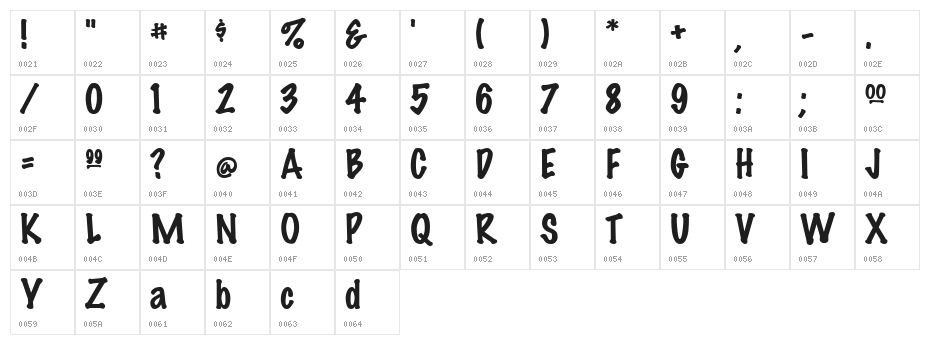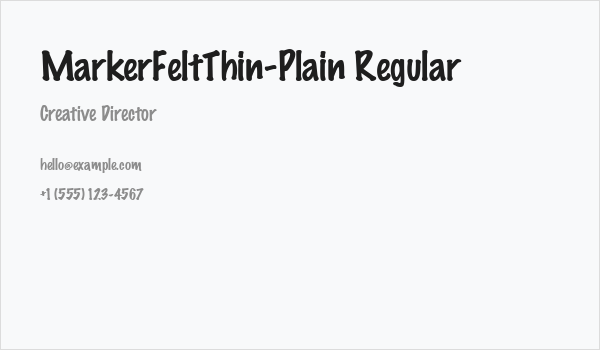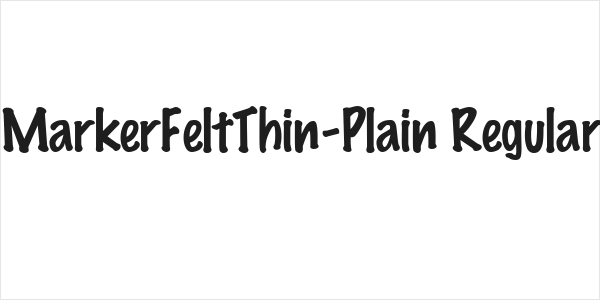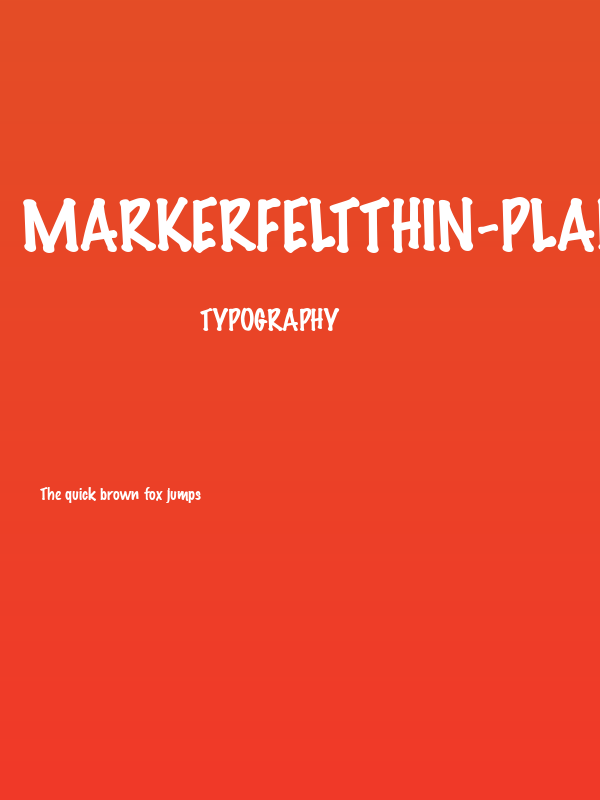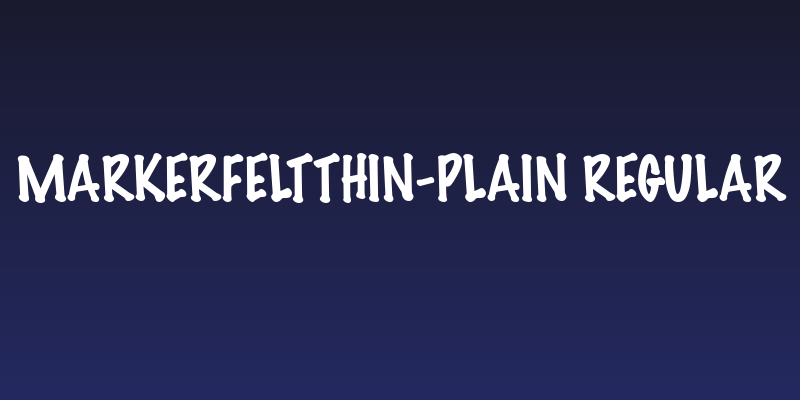
MarkerFeltThin-Plain Regular Font
MarkerFeltThin-Plain Regular Description
This font features a playful and casual handwritten style, characterized by its rounded edges and slightly irregular strokes that mimic the look of writing with a felt-tip marker. The letters are bold and have a consistent thickness, giving them a strong presence on the page. The uppercase and lowercase letters maintain a uniform height, while the numbers and special characters are designed to complement the overall aesthetic. This font exudes a friendly and approachable vibe, making it suitable for informal and creative projects.
| Proposed Projects | Ideal for children's books, greeting cards, posters, and any project requiring a casual, friendly touch. |